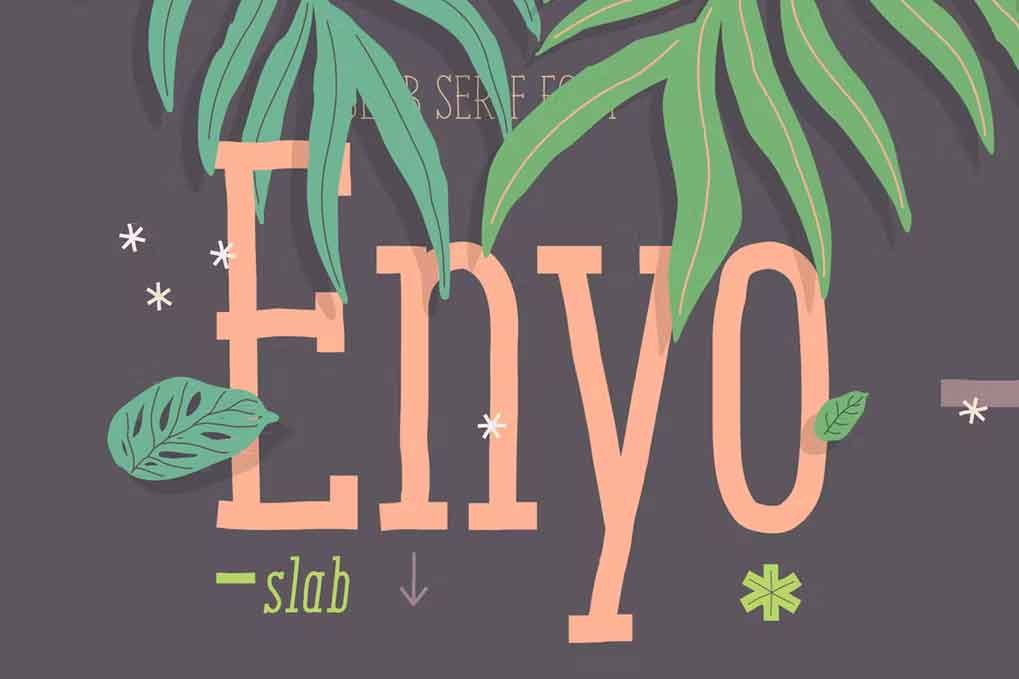
Enyo Slab Font
Enyo Slab is a decorative, display, slab handwritten font. This font will provide an informal look to your work! It can be used for small ammount of text, and specially for display usage because of its glyph quality.
Enyo offers OpenType features, including ligatures, alternates, smallcaps, scientific superior/inferior figures, oldstyle figures, fractions, slashed zero, and kerning.
This handwritten font has a large glyph coverage, supporting at least 133 languages including English, Spanish, French, German, Italian, Portuguese, Swedish, Polish, Czech, Vietnamese, Russian, among many others. Enyo Slab has also available the Cyrillic and Greek alphabets.
Where Enyo Slab Font works best
A short phrase in Enyo Slab Font carries warmth that a typeset sans cannot fake; keep the rest of the card plain.
Chalkboard-style headings in Enyo Slab Font make a menu feel hand-made. Keep the dish descriptions in a simple face so prices stay readable.
One line of Enyo Slab Font over a photo is enough; the script carries the tone and the caption does the work.
What kind of work does Enyo Slab Font suit?
It sits in the Script And Handwritten group and reads as decorative, display, handwritten, script. That makes it a candidate wherever those qualities help: headings, packaging, social graphics and brand work. Set it at the size you plan to use before deciding.